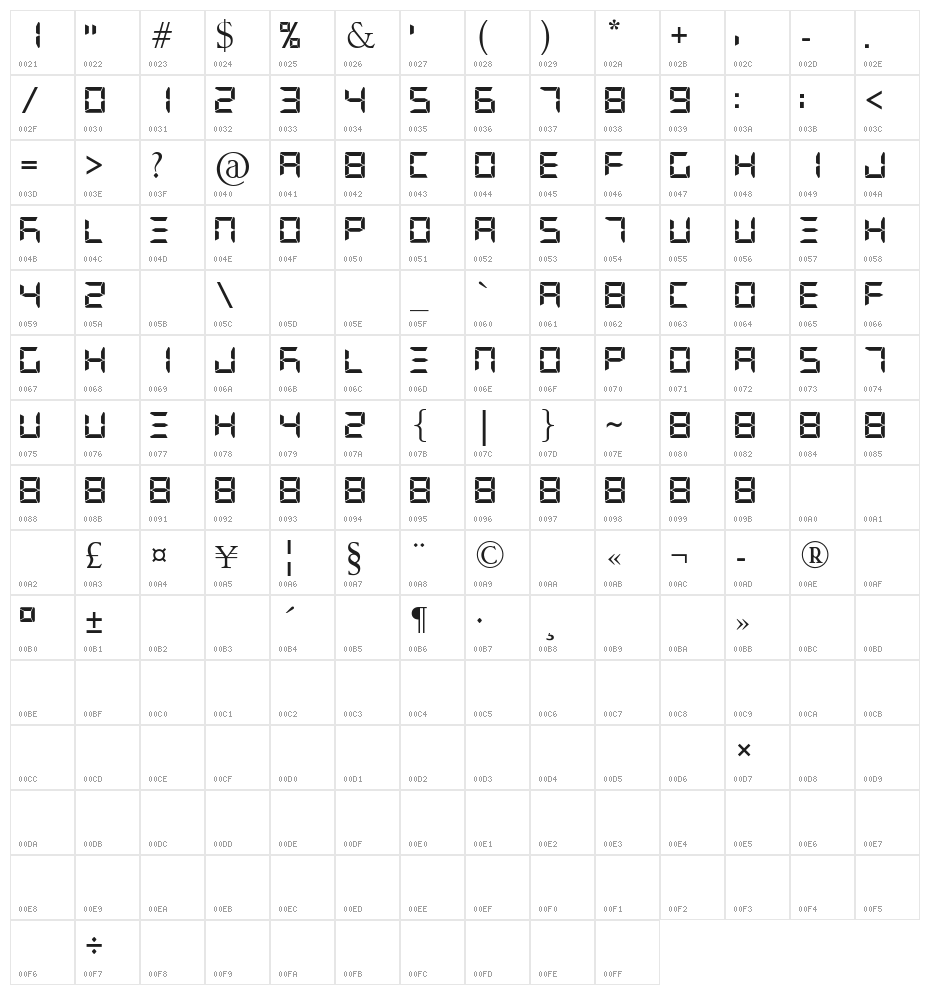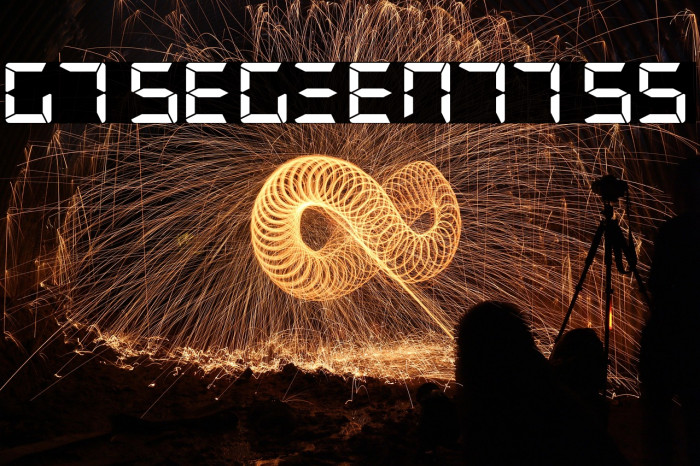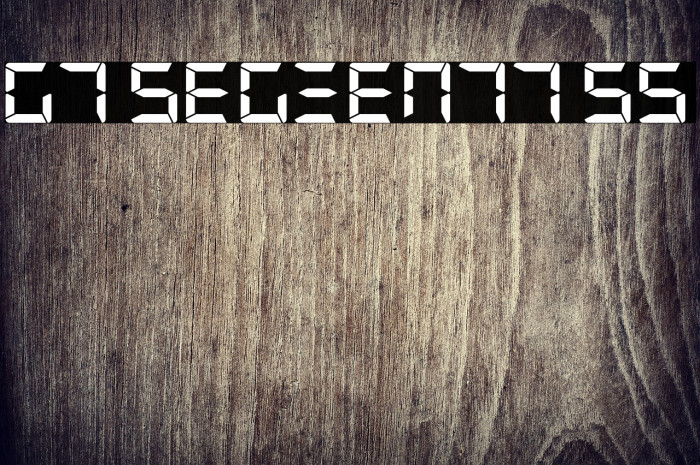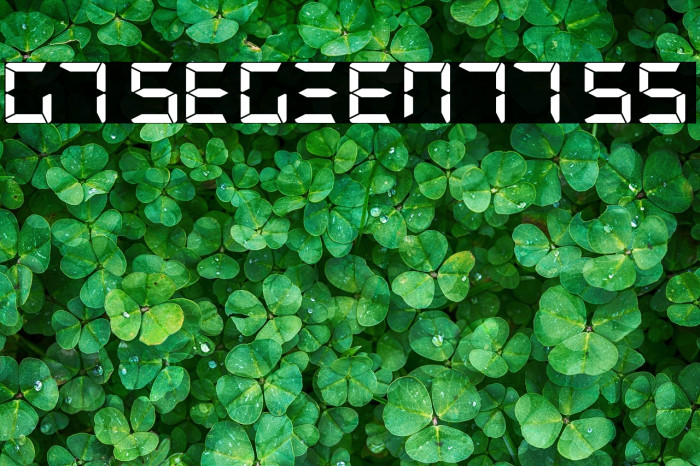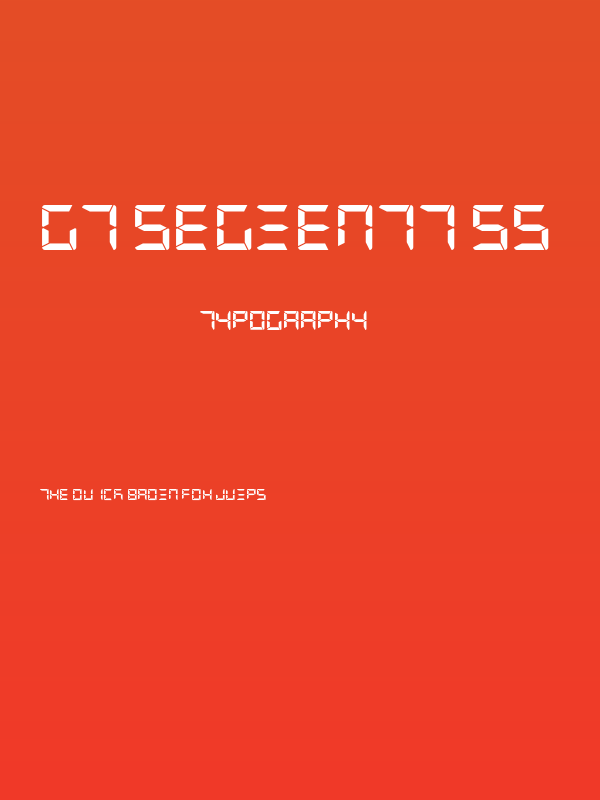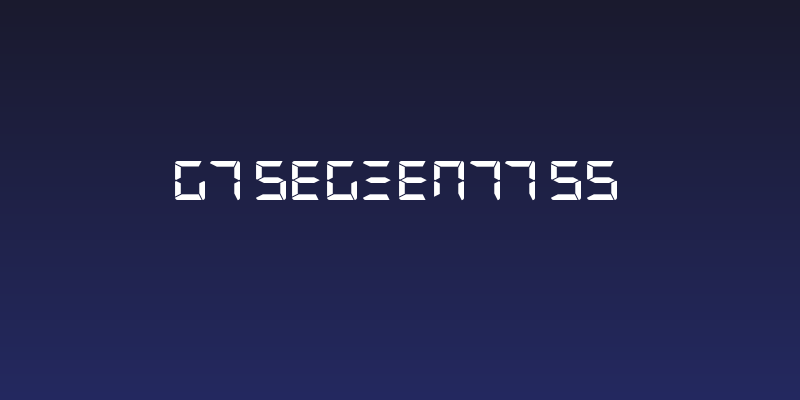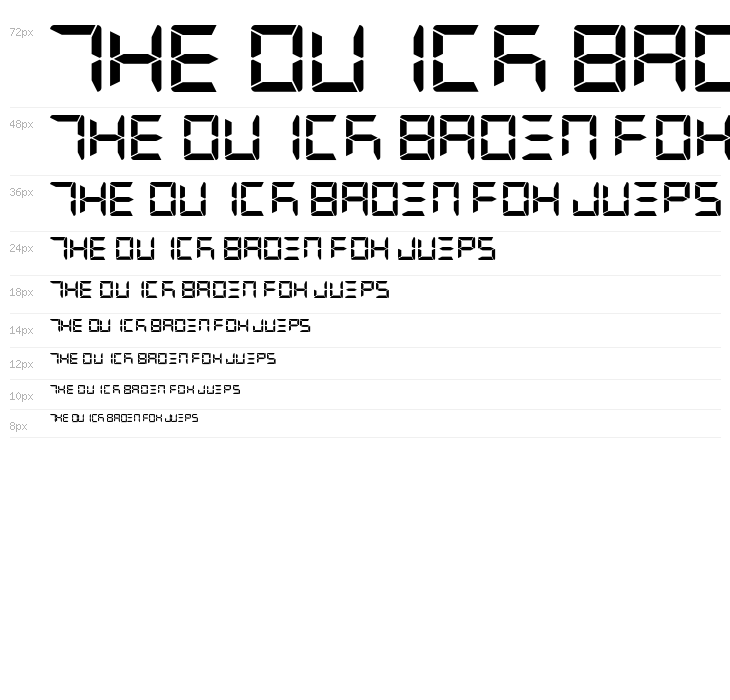
G7 Segment7 S5 Font
G7 Segment7 S5 Description
This font is reminiscent of digital displays, characterized by its segmented, geometric style that mimics the appearance of LED or LCD screens. Each character is constructed from a series of straight lines and angles, creating a blocky and mechanical look. The font is highly legible and distinct, making it ideal for conveying a modern, technological aesthetic. It lacks curves and flourishes, focusing instead on a straightforward, utilitarian design that emphasizes clarity and precision.
| Use Case | Headlines, Digital displays, Tech interfaces |
| Proposed Projects | Ideal for digital clocks, electronic devices, tech-themed designs, and futuristic branding. |